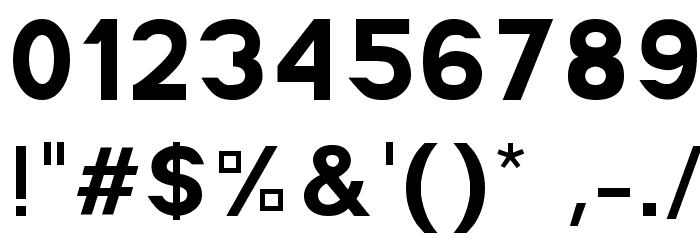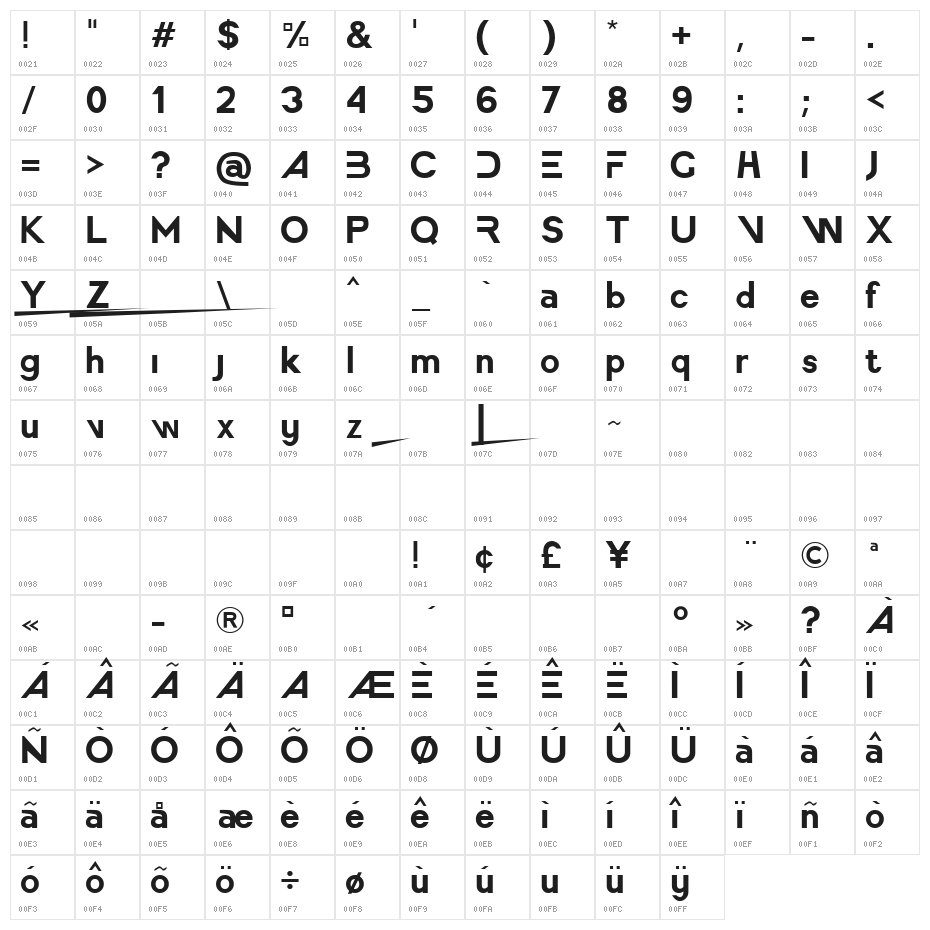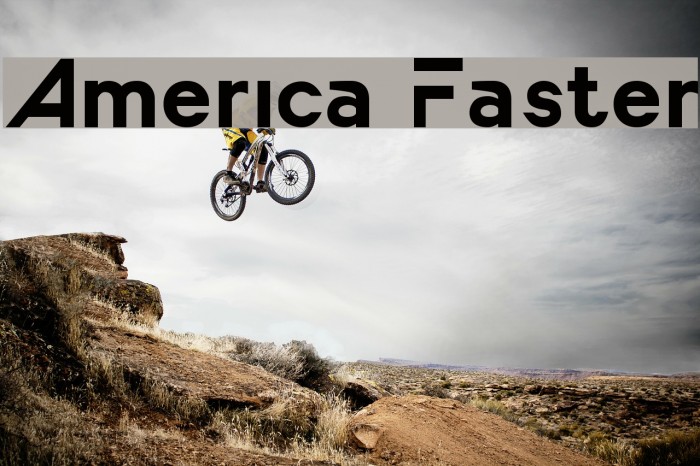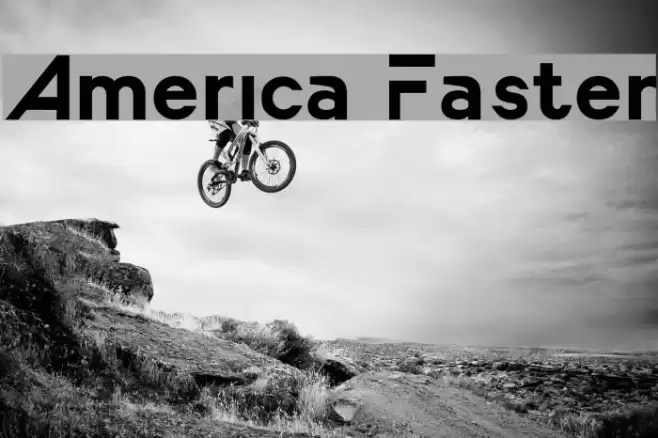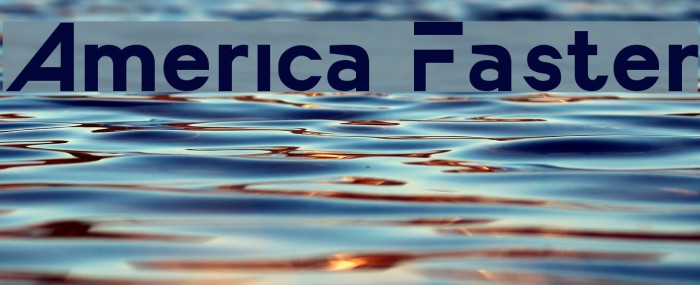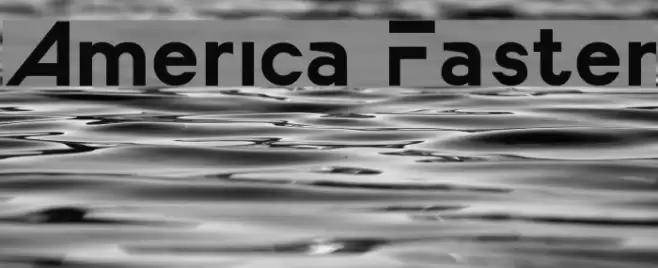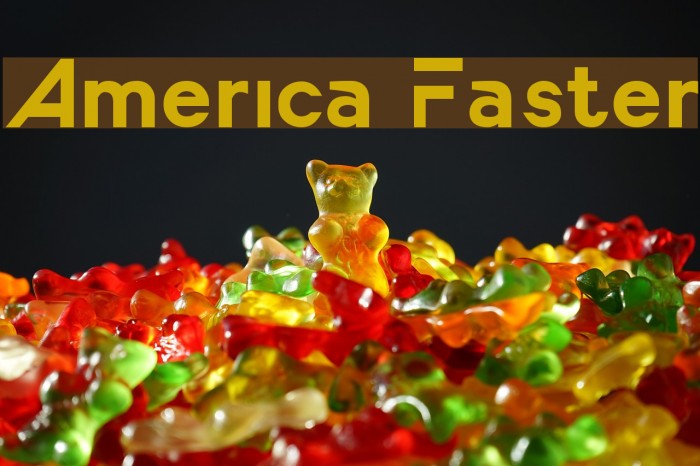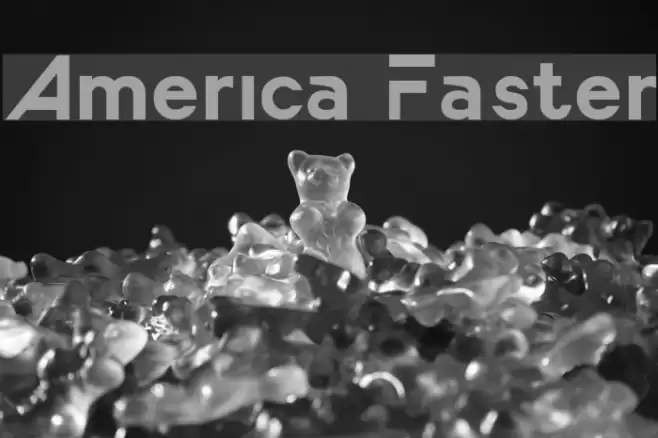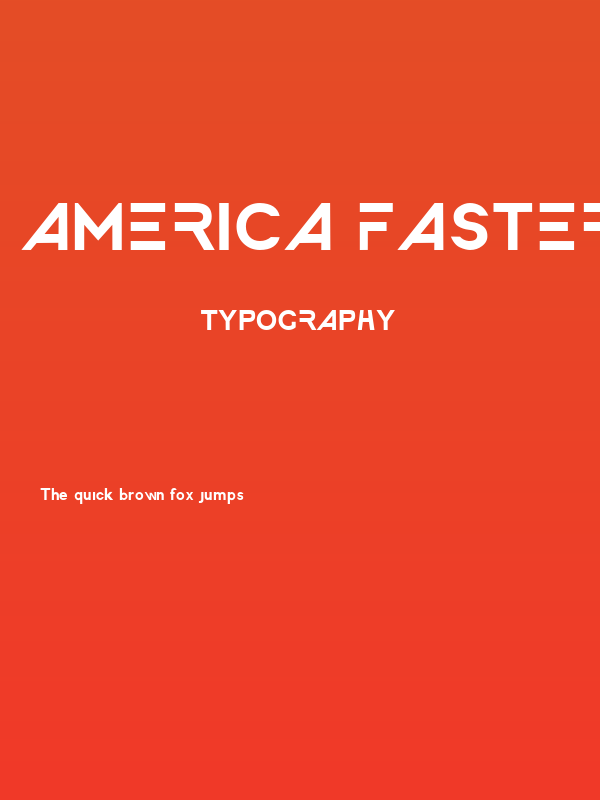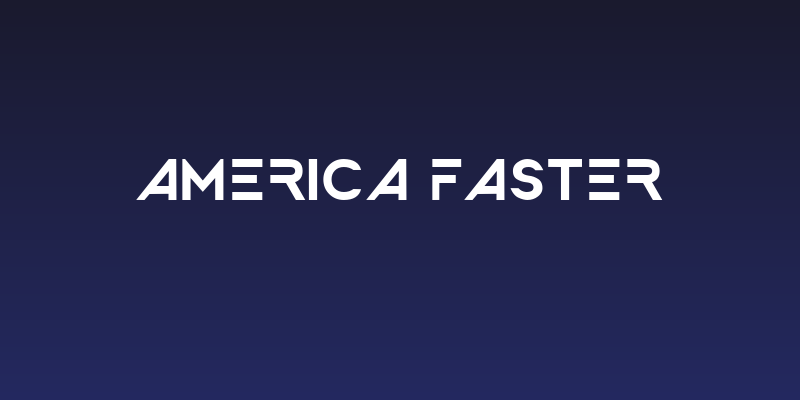
America Faster Font
America Faster Description
This font features a bold and modern design with a geometric and slightly futuristic aesthetic. The uppercase letters are characterized by their strong, angular lines and consistent stroke width, giving them a robust and impactful appearance. The lowercase letters maintain a similar style, with rounded edges that add a touch of softness to the overall look. The numerals are clear and legible, adhering to the same geometric principles as the letters. Special characters are well-integrated, maintaining the font's cohesive style. The font's design is versatile, making it suitable for a wide range of applications, from digital interfaces to print media.
| Use Case | Headlines, Logos, Digital Interfaces |
| Proposed Projects | Ideal for branding, advertising, digital interfaces, and print media. |